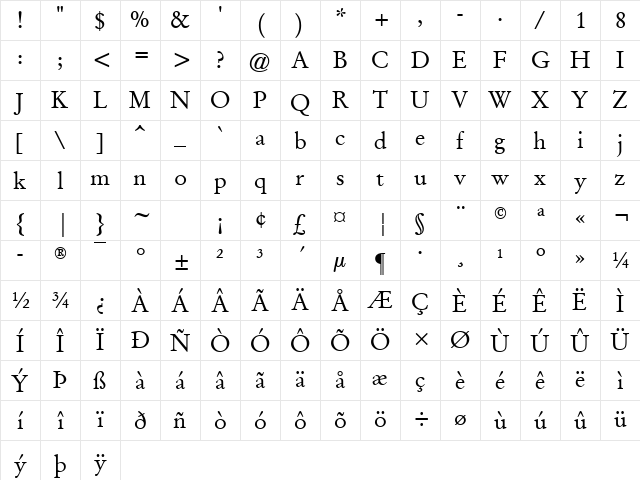
Garamond Antiqua
Complete Garamond Antiqua glyph index. Displaying only characters natively supported by Garamond Antiqua font.
Design Context for Garamond
Garamond is a composed and adaptable typeface that performs quietly and consistently across a wide range of design contexts.
Pro Tip: Use Garamond in both headline and body roles to test its range before committing to a single application.